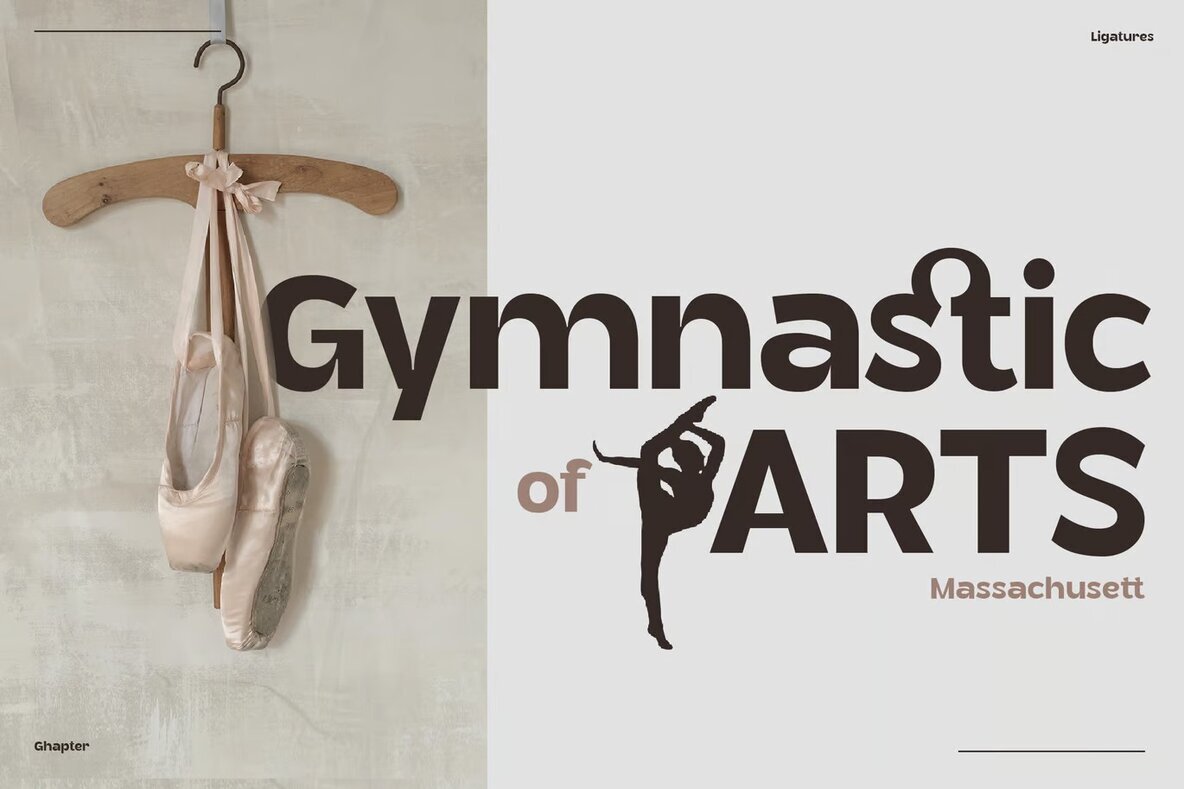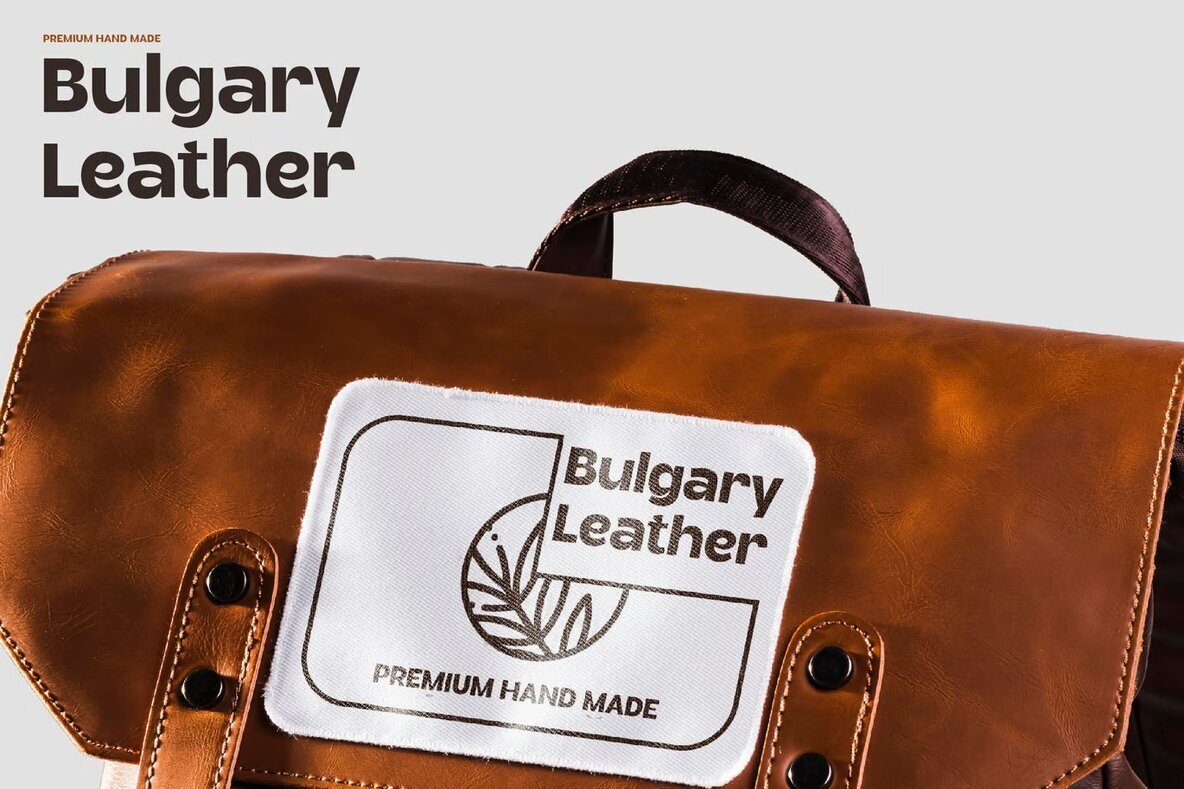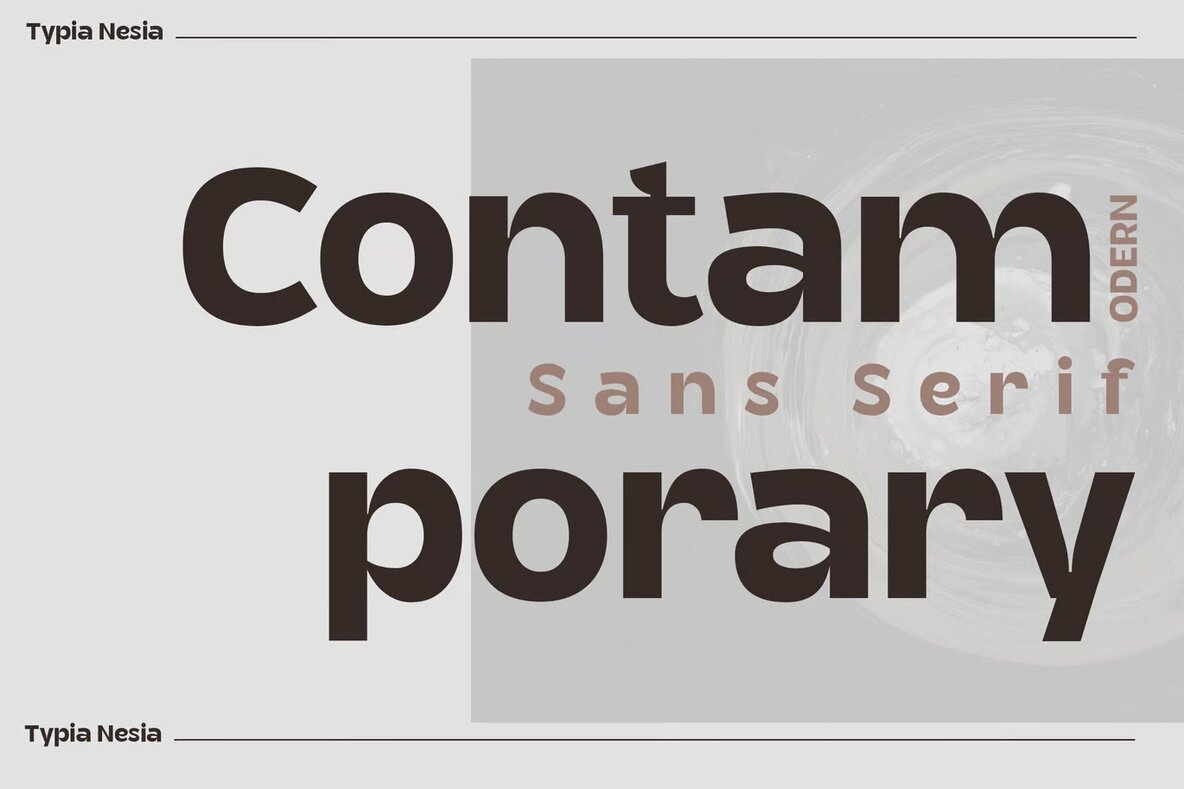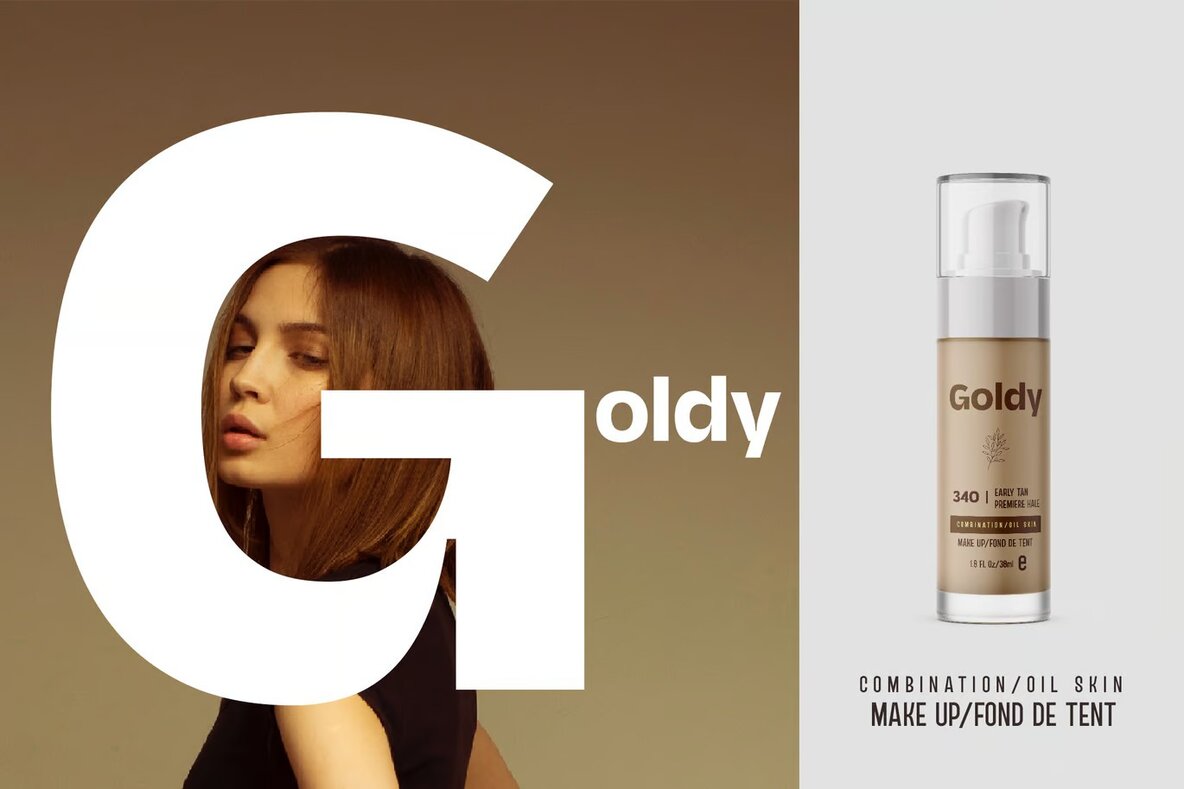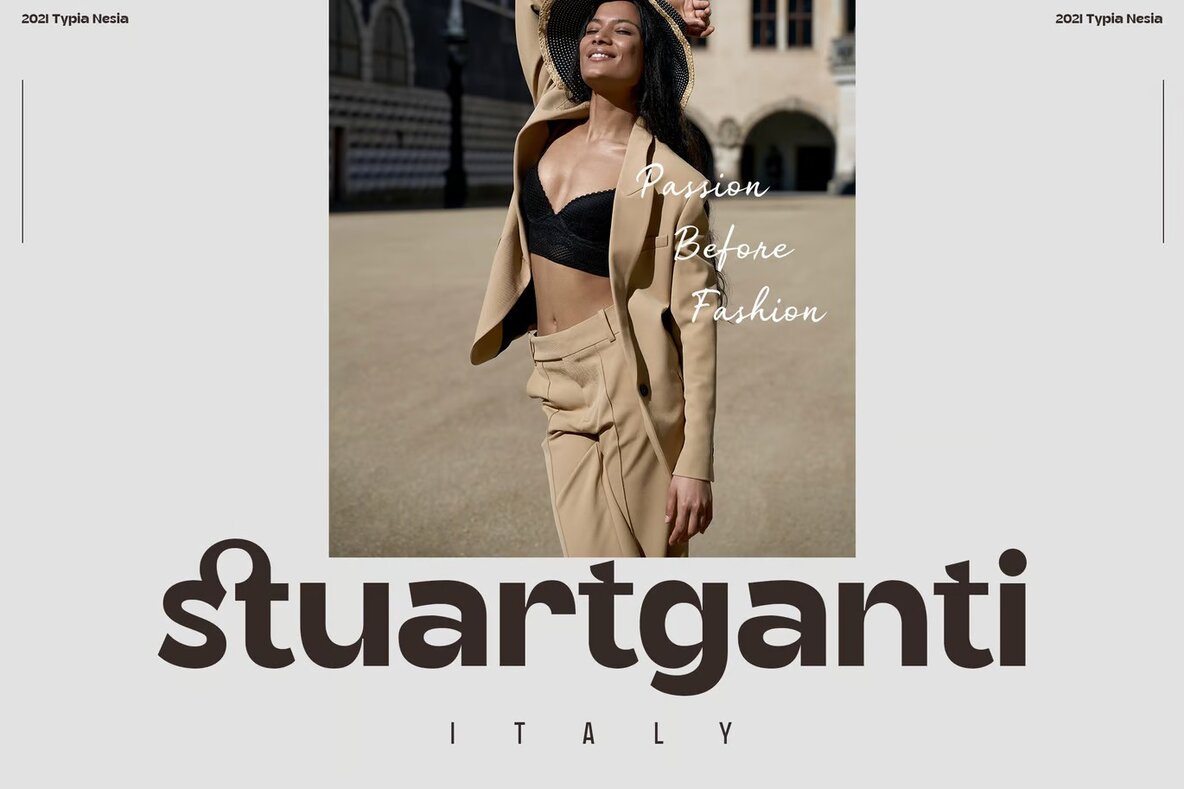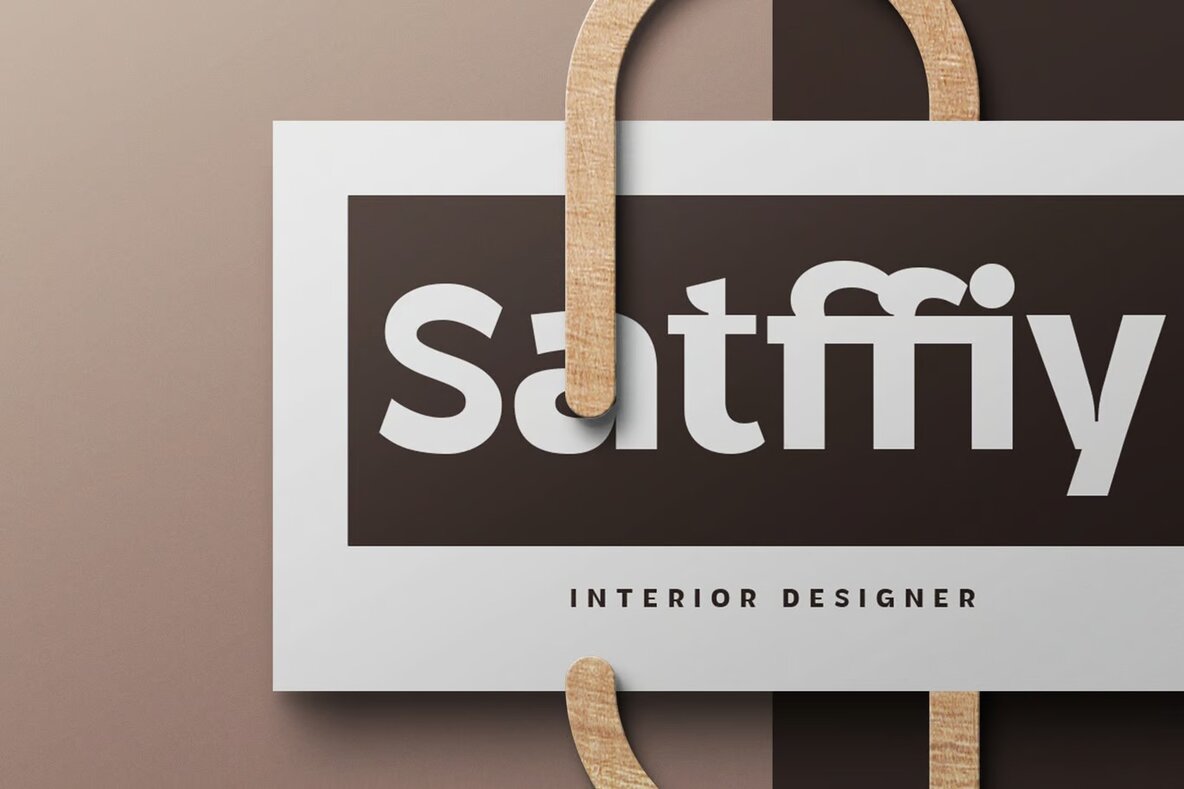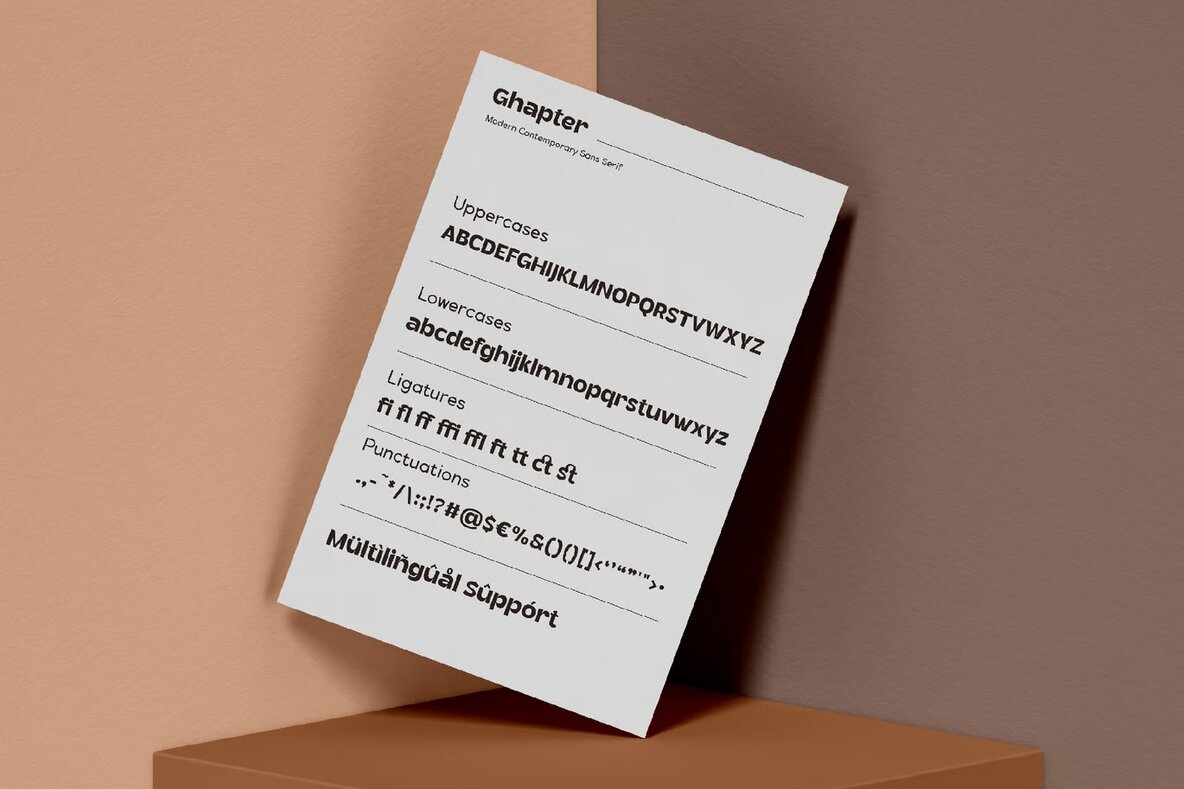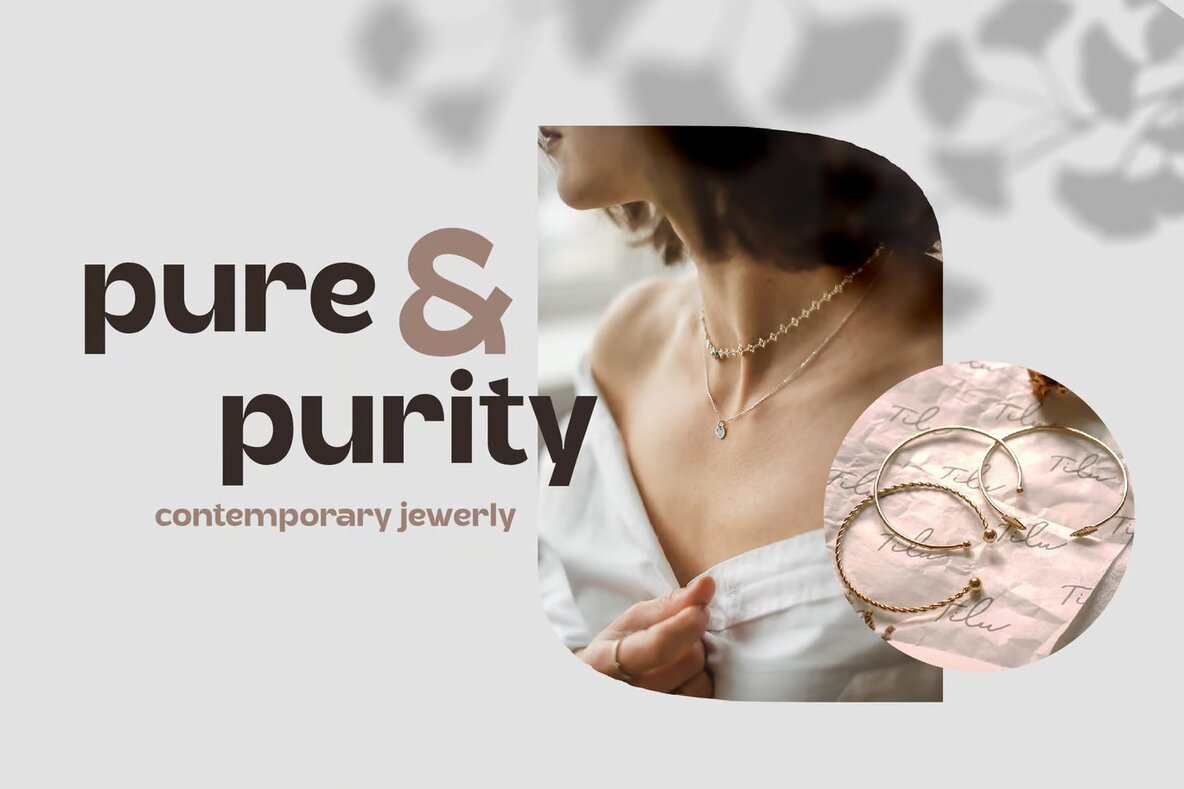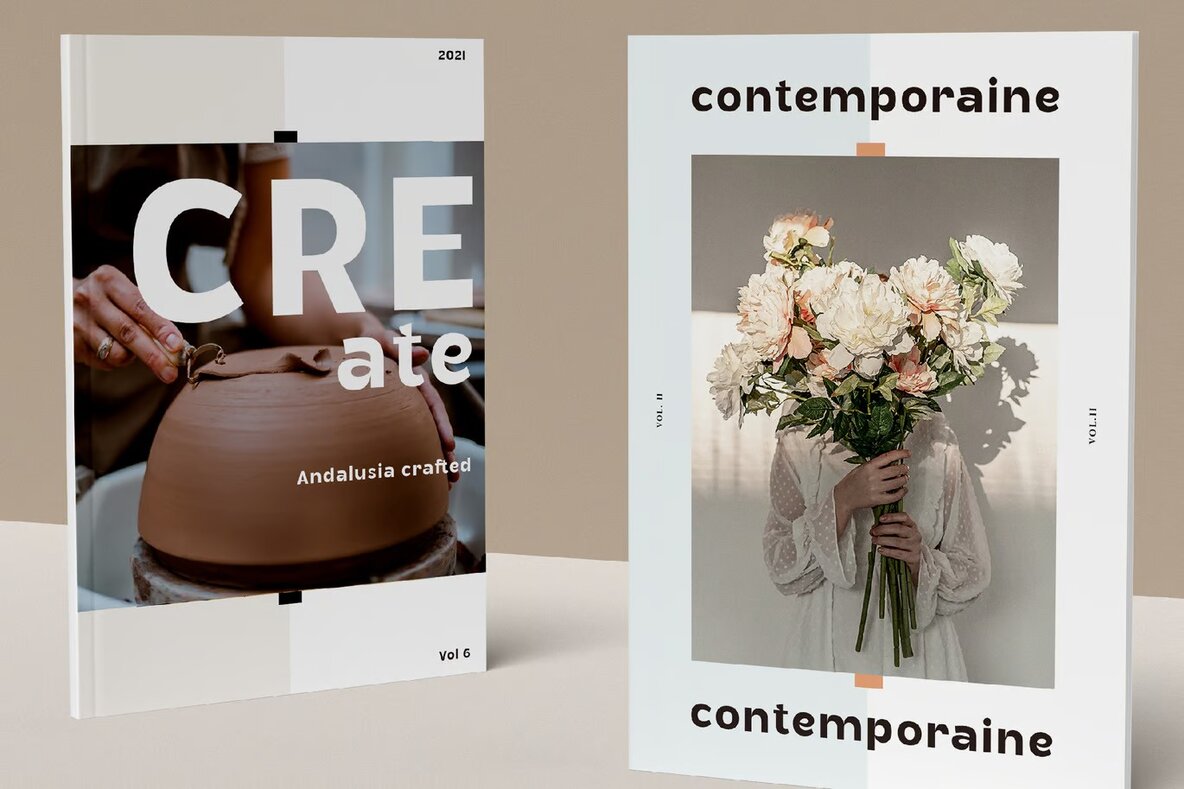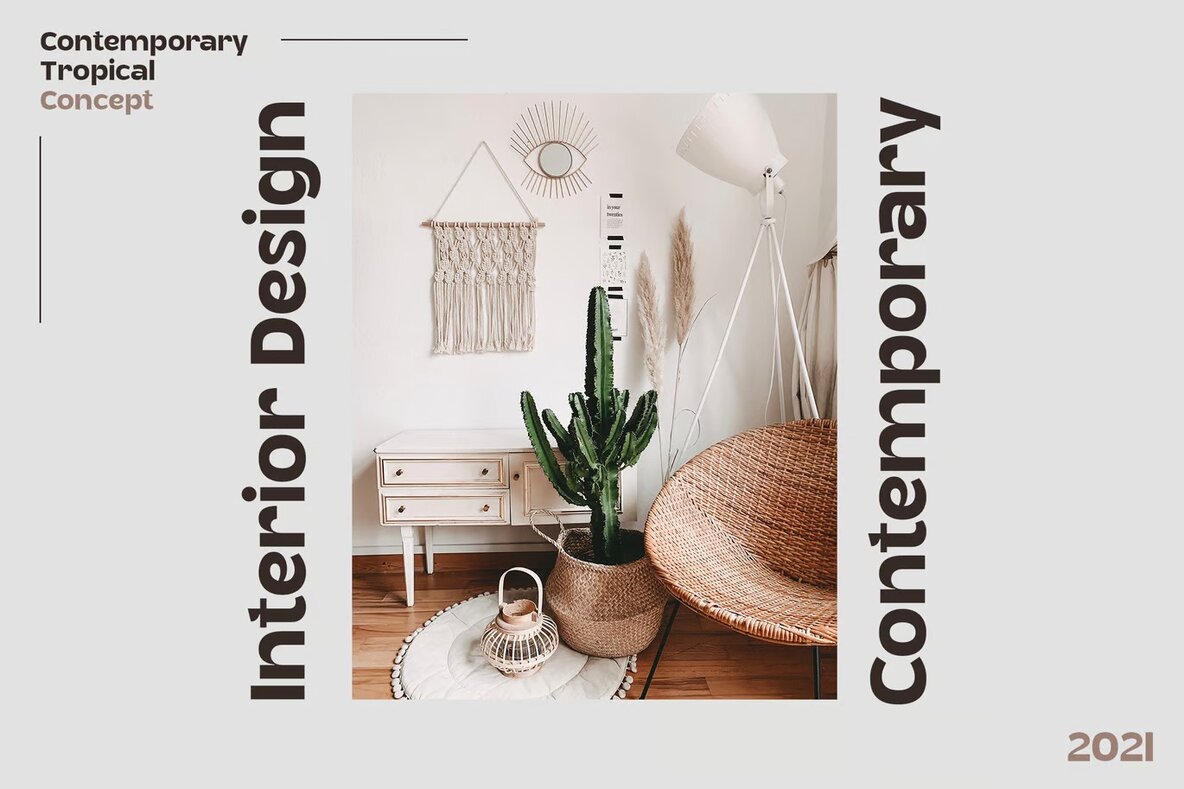
Ghapter Font
This sans-serif font is perfect for modern design projects with its clean and minimalistic aesthetic. Its geometric and sleek style ensures readability and versatility, making it ideal for branding, advertising, and corporate materials. The font's professional look is well-suited for digital platforms, including web design and user interfaces, as well as editorial headlines. Its neutral tone complements a range of design themes, offering great flexibility for creative professionals.